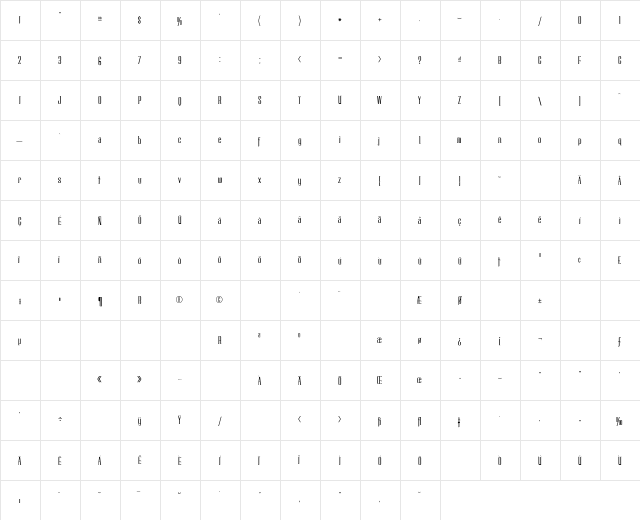
L Technique
Design Context for L Typeface
L has a distinctly futuristic character, with geometric precision and clean angles that feel at home in technology, gaming, and sci-fi contexts.
Pro Tip: Try L with generous letter-spacing in UI labels and navigation — the geometric forms benefit from room to breathe.